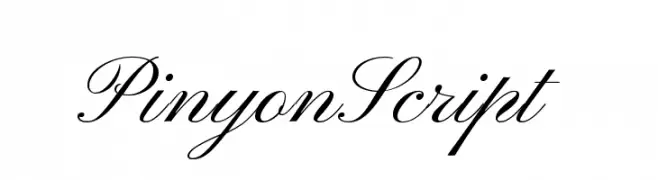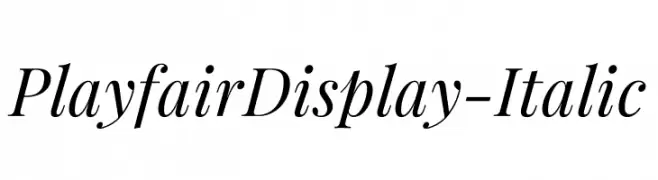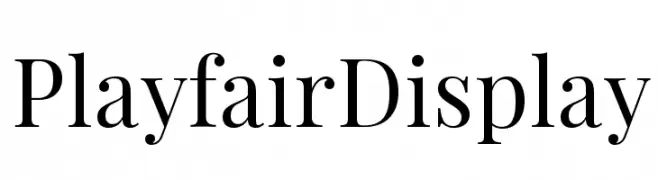
A bold, slab serif font with a vintage Western style.
A modern, monospaced font with a retro electronic display vibe.
A bold, italic serif font with a classic and elegant style.
A geometric, angular font with a modern and technical style.
A heavy serif font with strong contrasts and a classic style.
An elegant and decorative script font with flowing, cursive letterforms.
) A modern sans-serif font with clean, balanced letterforms and consistent stroke width.
A playful, bold script font with smooth, flowing curves and a handwritten feel.
An elegant serif typeface with high contrast and a classic italic style.
A classic serif font with high contrast and elegant serifs.